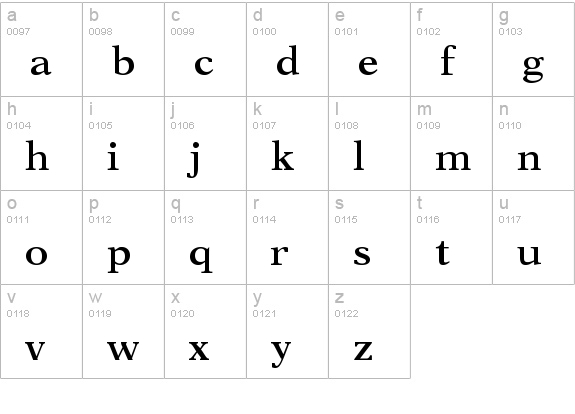
New Aster Semi Bold Font Details
New Aster Semi Bold is a strong, high-contrast variant in the New typeface family \xE2\x80\x94 well suited to headlines, attention-grabbing titles, and strong calls-to-action.
Introducing New Aster Semi Bold font, a versatile and modern typeface designed to make your text stand out. With its clean lines and bold presence, New Aster Semi Bold is perfect for a wide range of design projects, from branding to editorial design. The font exudes a sense of sophistication and professionalism, while still maintaining a touch of creativity. What's even better is that New Aster Semi Bold font is available for free download at FontsMarket.com. This means you can easily access this stylish and eye-catching font to elevate your designs without any cost. So why wait? Enhance your projects today with the sleek and impactful New Aster Semi Bold font.